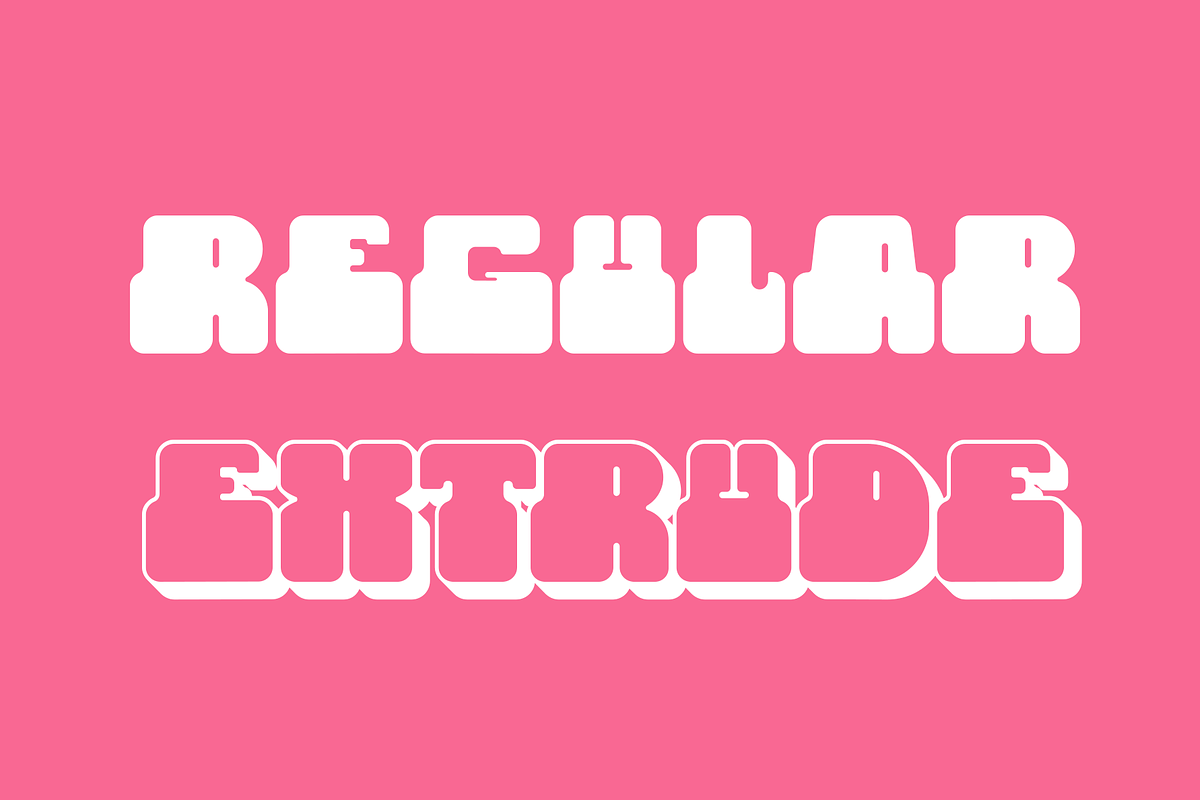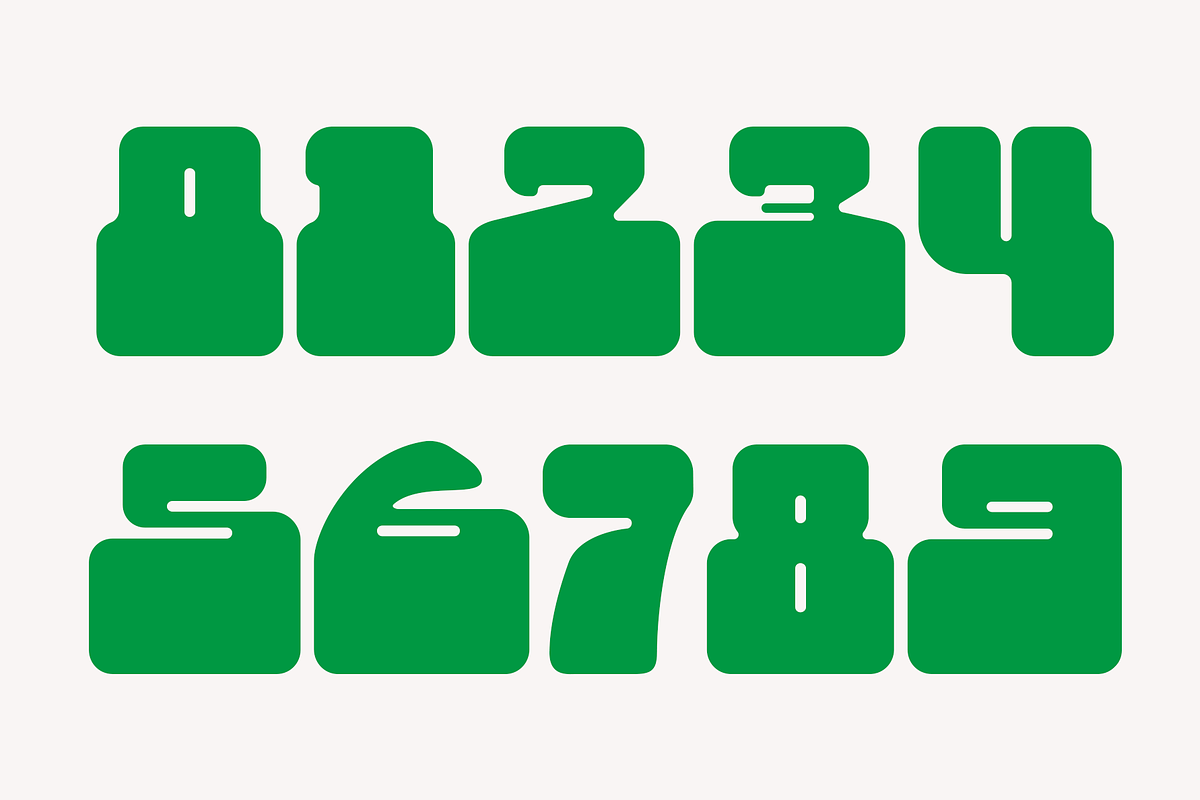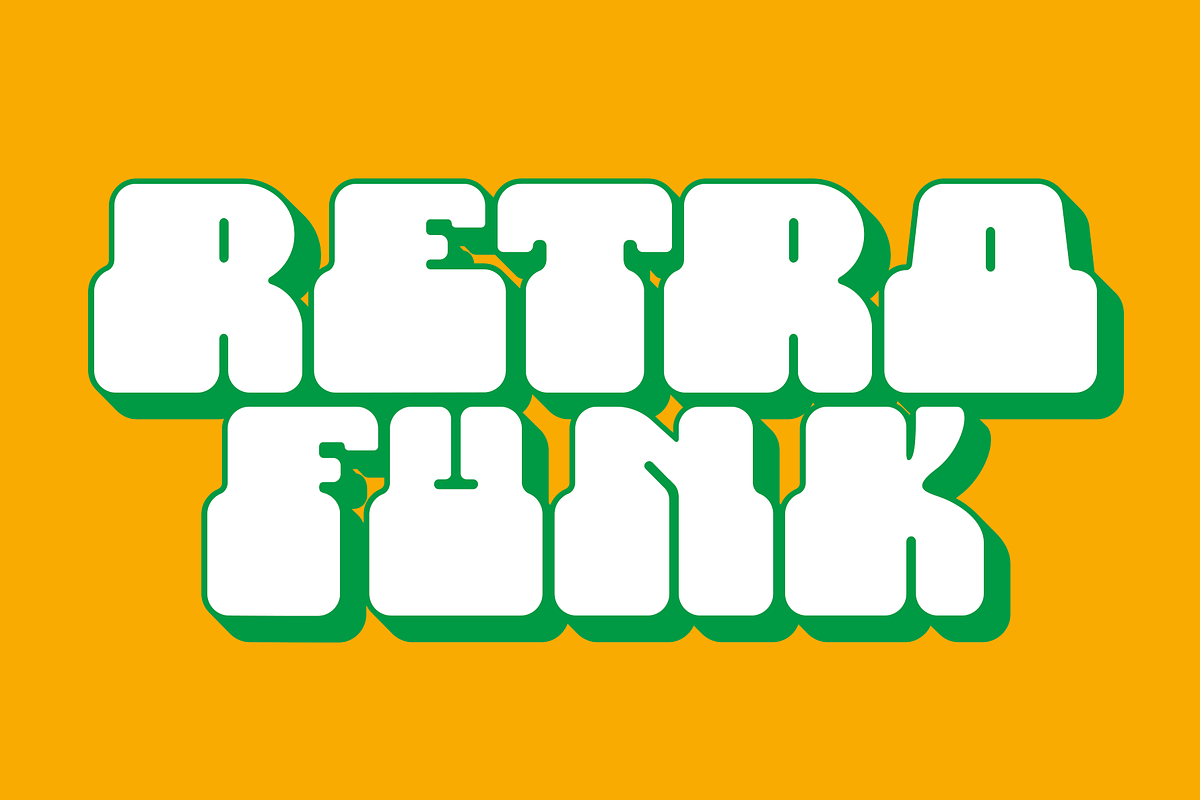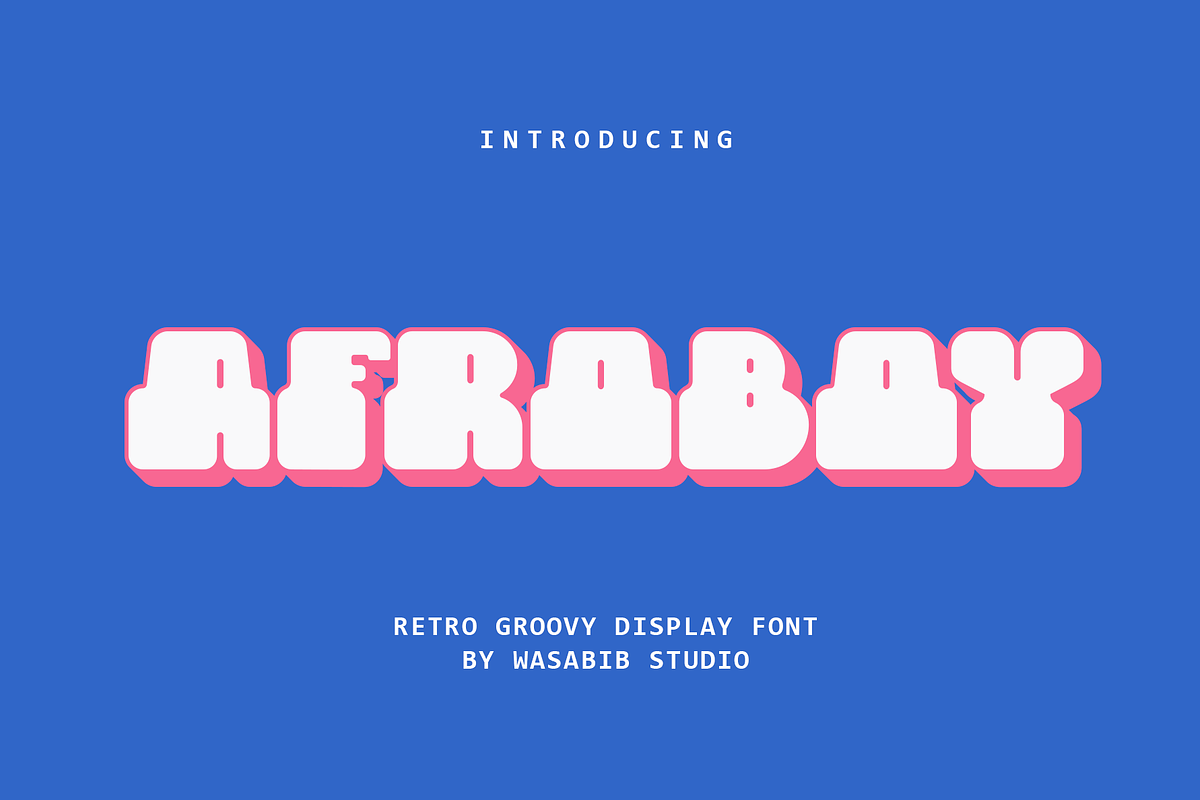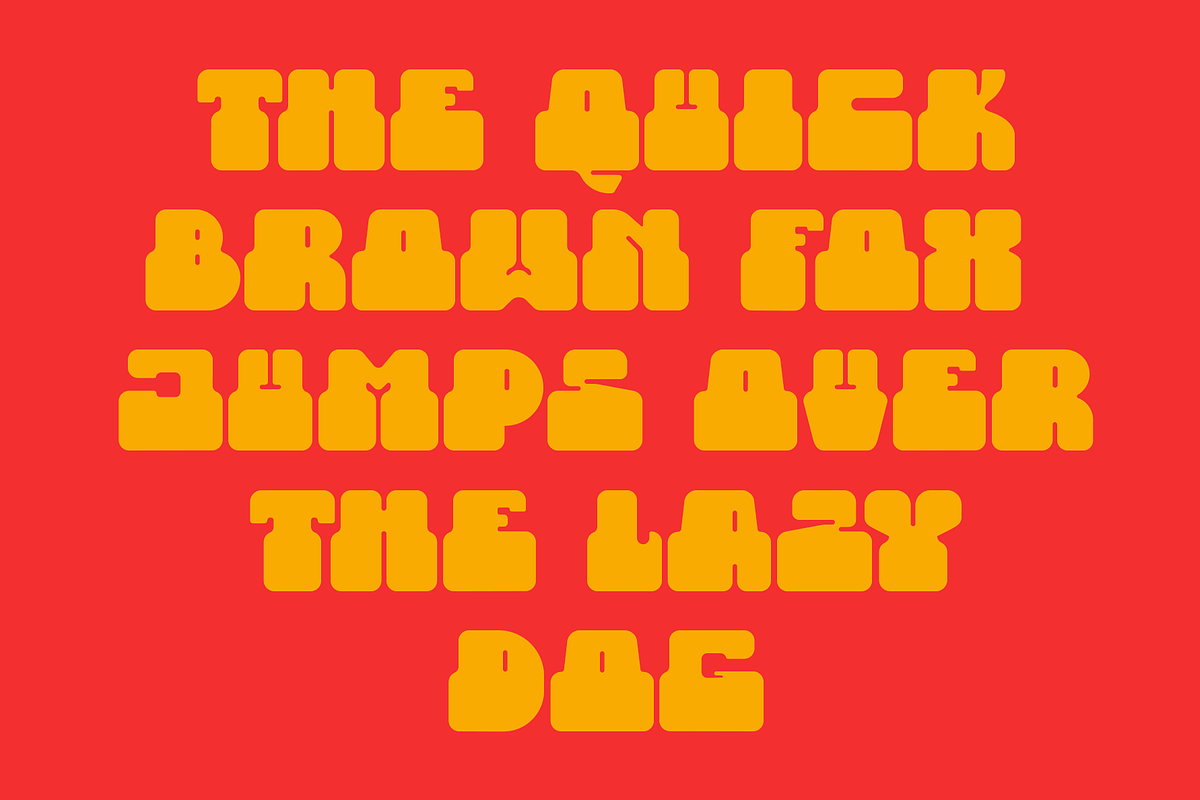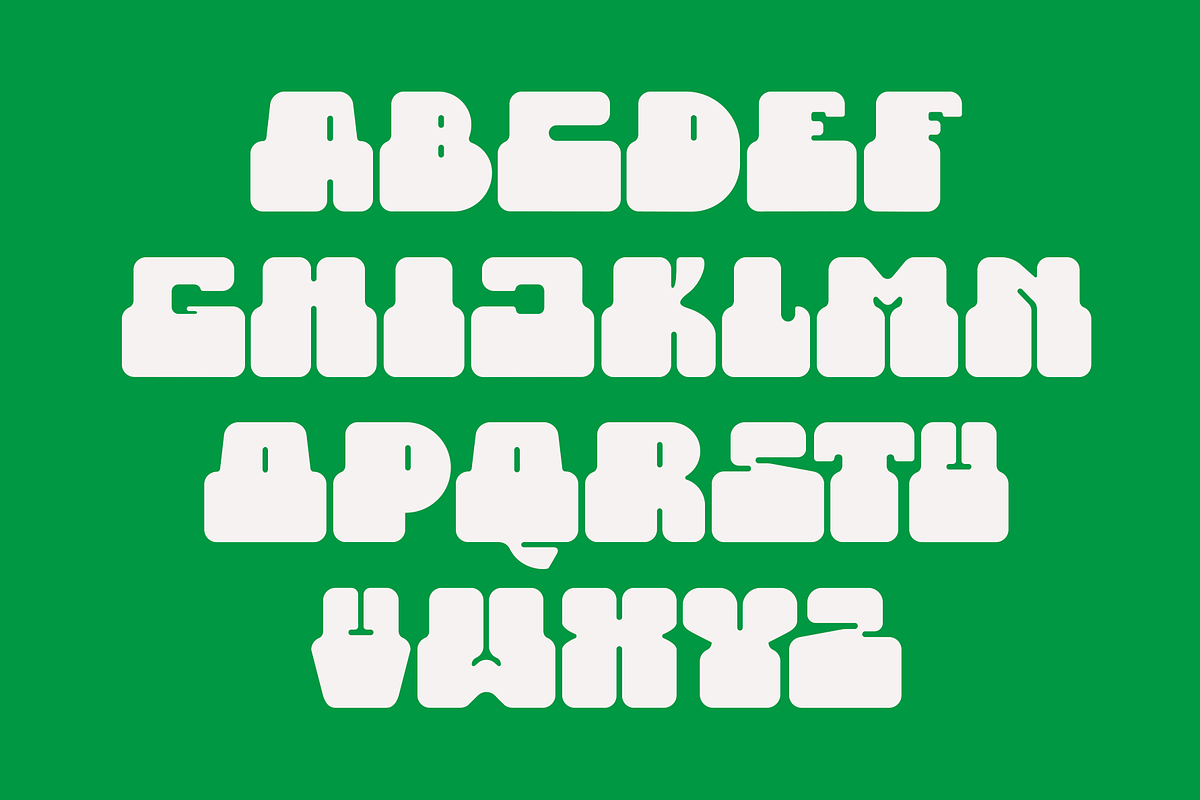
Afroboy
Afroboy Display Font is a modern, bold geometric sans-serif typeface designed for high impact visuals. Its 'obese' letterforms and simple design lend themselves well to branding, logos, headlines, posters, and digital advertising. The font evokes a retro feel while maintaining a fresh and fun aesthetic. It's available in regular and bold weights.